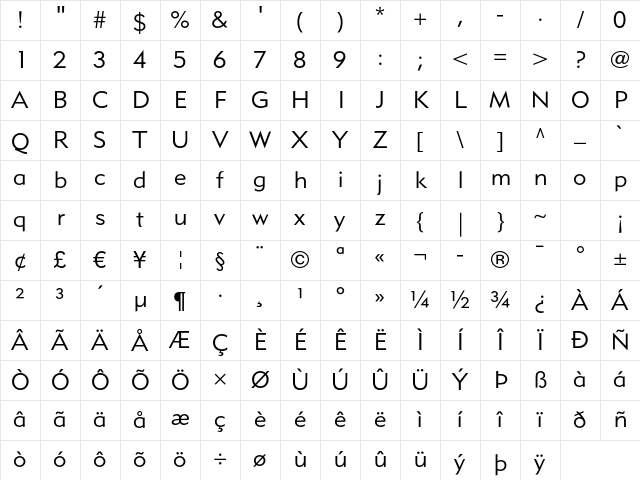
MetroLite LT Two Regular
Complete MetroLite LT Two Regular glyph index. Displaying only characters natively supported by MetroLite LT Two Regular font.
Design Context for MetroLite LT Two
MetroLite LT Two is a composed and adaptable typeface that performs quietly and consistently across a wide range of design contexts. Its slender proportions lend an understated elegance to any composition.